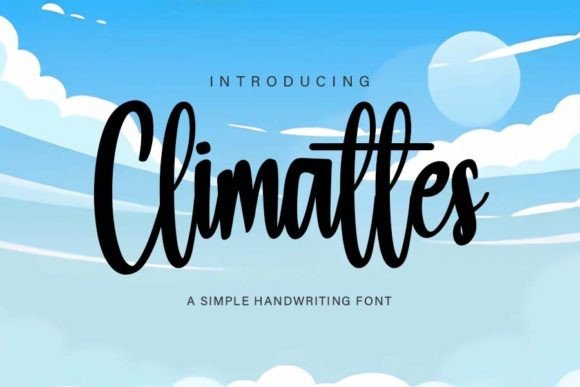
Discover the Charm of Climattes Font: Elevate Your Designs with its Unique Style
Are you on the hunt for a font that can add a touch of elegance and sophistication to your designs? Look no further than Climattes Font! This beautiful handwritten font is perfect for a wide range of creative projects, from logos and wedding stationery to photography watermarks and modern websites. In this article, we’ll dive into the world of Climattes Font and explore its features, benefits, and uses.
What is Climattes Font?
Climattes Font is a stunning handwritten font that boasts an incredibly distinct and timeless style. Its unique charm is sure to capture the hearts of designers and crafters alike. With its elegant and refined aesthetic, Climattes Font is ideal for anyone looking to add a touch of sophistication to their designs.
Key Features of Climattes Font
- Handwritten style: Climattes Font features a beautiful handwritten style that is both elegant and refined.
- Unique and distinct: Its incredibly distinct and timeless style sets it apart from other fonts.
- Versatile: Climattes Font is perfect for a wide range of creative projects, from logos and wedding stationery to photography watermarks and modern websites.
- Elegant and sophisticated: This font is sure to add a touch of elegance and sophistication to any design.
Uses of Climattes Font
Climattes Font is an incredibly versatile font that can be used for a wide range of creative projects. Here are some ideas to get you started:
- Logos: Climattes Font is perfect for creating unique and memorable logos that will help your brand stand out.
- Wedding stationery: Add a touch of elegance and sophistication to your wedding stationery with Climattes Font.
- Photography watermarks: Use Climattes Font to create beautiful and subtle watermarks for your photography work.
- Modern websites: Climattes Font is a great choice for modern websites, adding a touch of elegance and sophistication to your design.
Benefits of Using Climattes Font
So why choose Climattes Font for your next design project? Here are just a few benefits of using this amazing font:
- Stand out from the crowd: Climattes Font is a unique and distinct font that will help your designs stand out from the crowd.
- Easy to read: Despite its elegant and refined aesthetic, Climattes Font is incredibly easy to read.
- Customizable: Climattes Font can be customized to fit your specific design needs.
- Time-saving: With Climattes Font, you can create stunning designs in no time.
Tips for Using Climattes Font
Here are a few tips for using Climattes Font to get the most out of this amazing font:
- Use it sparingly: Climattes Font is a statement font, so use it sparingly to make the most impact.
- Experiment with different colors: Climattes Font looks great in a variety of colors, so don’t be afraid to experiment.
- Pair it with other fonts: Climattes Font pairs well with other fonts, so try pairing it with a sans-serif font for a unique look.
In conclusion, Climattes Font is a beautiful handwritten font that is perfect for designers and crafters looking to add a touch of elegance and sophistication to their designs. With its unique and distinct style, Climattes Font is sure to capture the hearts of anyone who sees it. Whether you’re creating logos, wedding stationery, photography watermarks, or modern websites, Climattes Font is the perfect choice.